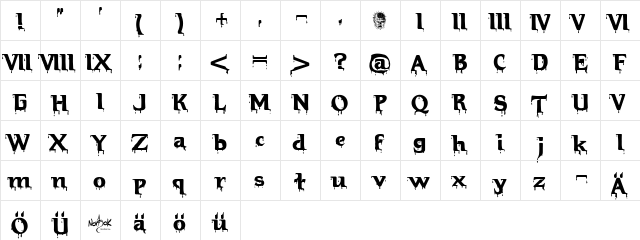
Hellraiser Bloody Regular
| Designer | Thomas W. Otto |
Design Context for Hellraiser Bloody Typeface
Hellraiser Bloody leans into the macabre with letterforms designed to disturb and intrigue in equal measure.
Perfect for anything that needs to unsettle — game titles, horror branding, and macabre invitations.
Font Pairing: Pair with a clean neutral sans-serif for body copy to let Hellraiser Bloody's character lead without overwhelming the composition.
Pro Tip: Use Hellraiser Bloody at larger display sizes for maximum impact. Consider generous tracking to let the disturbing character of each letterform breathe.